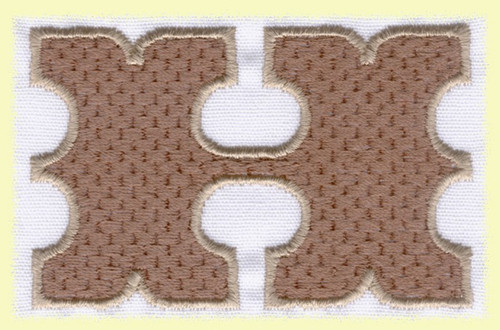
015 Western Fill Font
Western Monograming/Lettering Embroidery Set comes in 1" and 2" tall caps and numbers. They are stitched in a brick fill and outlined in satin stitch with one threadstop for color change.